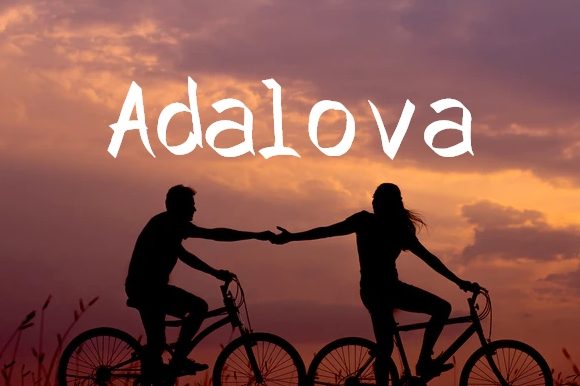
Adorned with the charm of a casual handwritten style, Adalova Font graces your designs with its playful and endearing personality. This spirited script font, a creation of Rizky Creative, exudes a magnetic warmth that draws eyes and hearts alike.
Adorned with a cascade of flowing strokes and natural curves, Adalova Font dances across your designs with a captivating rhythm. Experience the allure of its spontaneous brush strokes, capturing the essence of effortless creativity. Adalova Font is a gift to those seeking a touch of whimsy and authenticity in their designs. Dive into the world of Adalova Font and let your imagination soar!
Immerse yourself in the world of Adalova Font, a script font that awakens your senses and ignites your passion for creativity. This remarkable font is a symphony of artistry, combining the charm of handwritten strokes with a touch of modern sophistication. Adalova Font beckons you to express your individuality, whether you're a seasoned designer or just starting your creative journey. Witness the transformation as your vision materializes into captivating logos, branding elements, social media posts, and handmade wonders.
Unleash your inner artist and let Adalova Font guide you through a world of creative possibilities. Its versatility knows no bounds, adapting seamlessly to a myriad of design projects. Envision your social media platforms brimming with life, your branding materials radiating warmth and personality, and your handmade creations imbued with a unique charm. Adalova Font is the key to unlocking your creative potential, turning your designs into captivating masterpieces.
With Adalova Font as your trusted companion, embark on a journey of self-expression and creativity. Its user-friendly nature makes it accessible to both seasoned designers and those taking their first steps into the world of design. Embrace the simplicity and ease of use that Adalova Font offers, allowing you to focus on bringing your vision to life.